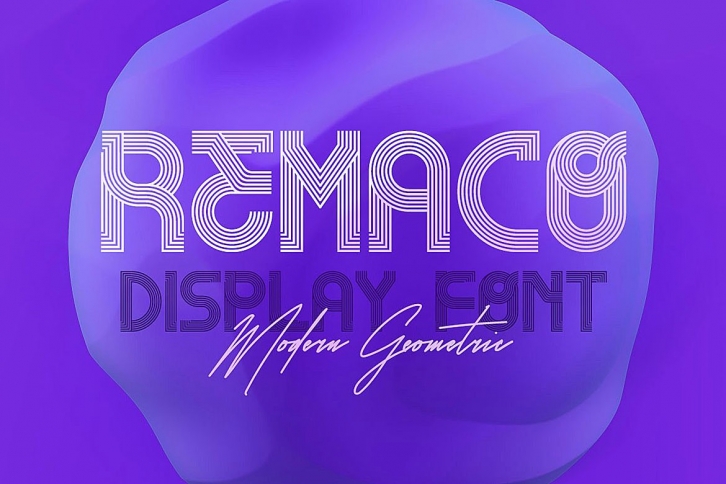
Remaco is a beautiful font that was designed by Cruzine Design. It's a great choice for designers and creatives who need such a font. It was released on January 1, 2019 and the file size is 17.56 MB. Remaco may give a more youthful, expressive and casual look to your project. It is a very beautiful, refined, elegant, and high-quality font.